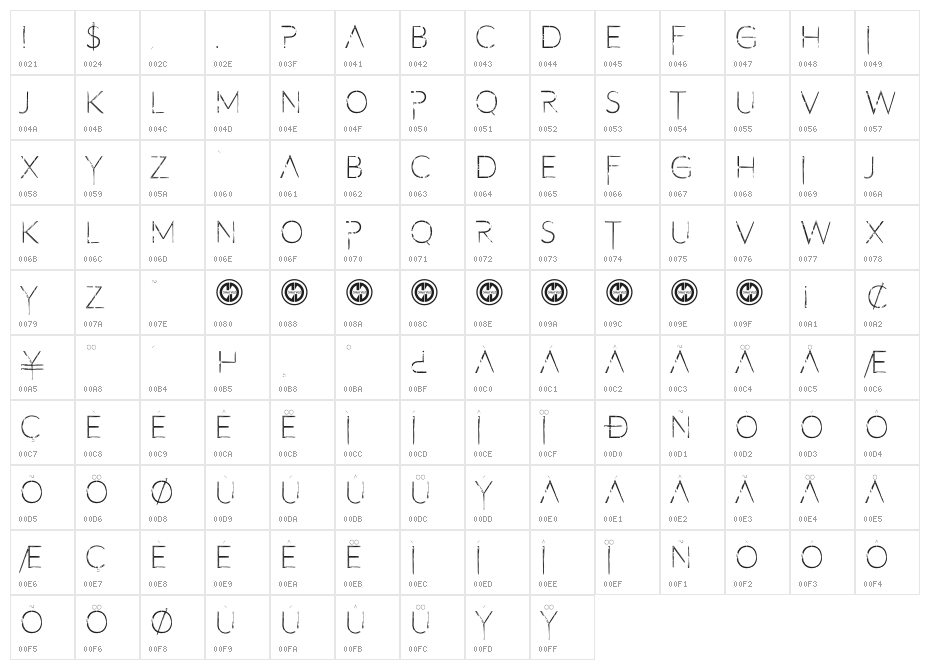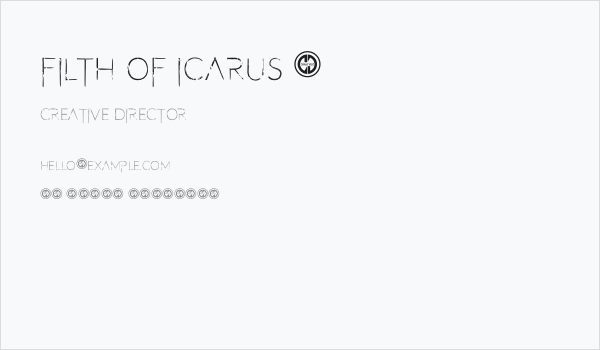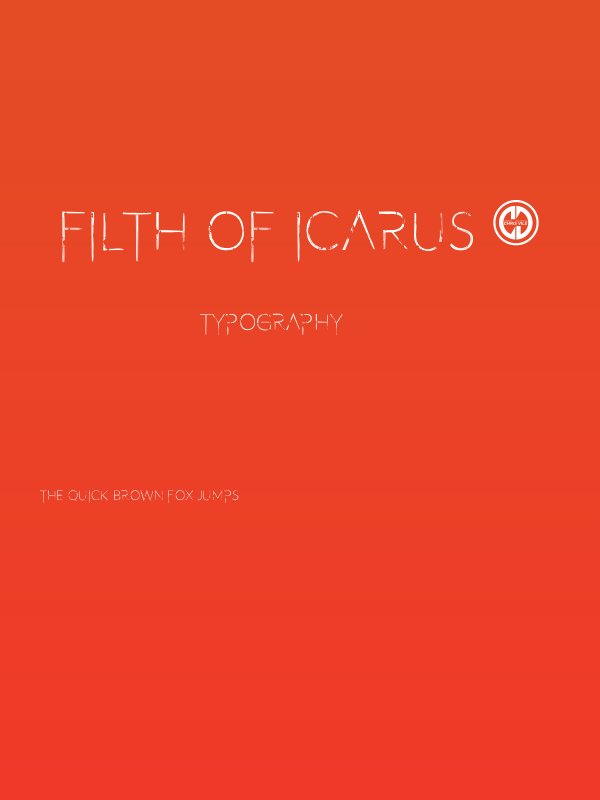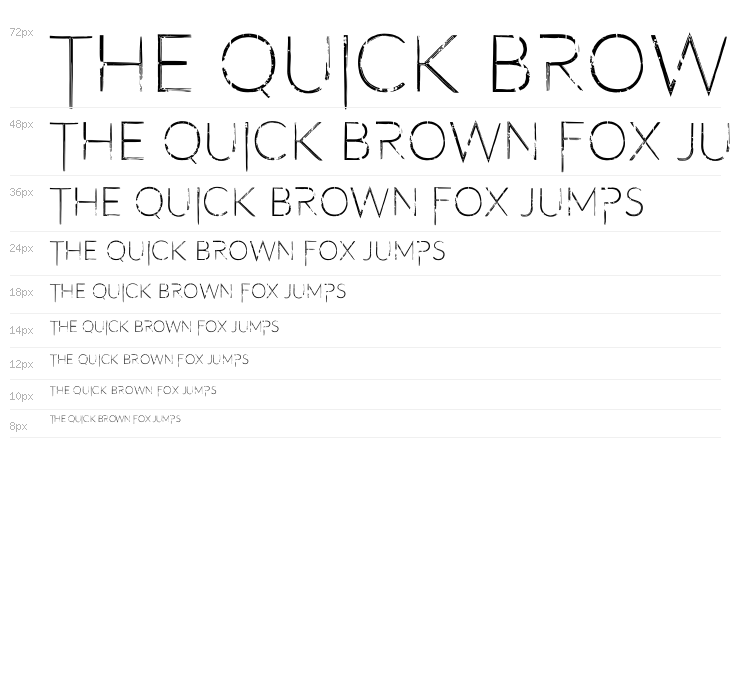
Filth of Icarus 2 Font
Filth of Icarus 2 Description
This font features a distressed, grunge aesthetic with a modern twist. The characters are uppercase and exhibit a worn, weathered appearance, as if they have been eroded over time. The strokes are primarily straight and geometric, with occasional rough edges and missing segments that add to its unique, edgy look. The overall design is clean yet intentionally imperfect, making it ideal for projects that require a bold, rebellious, or industrial feel. The font's style is both eye-catching and versatile, suitable for various creative applications.
Overall StyleModern, Grunge
Proposed ProjectsIdeal for album covers, posters, branding for edgy or alternative products, and any design needing a bold, industrial feel.